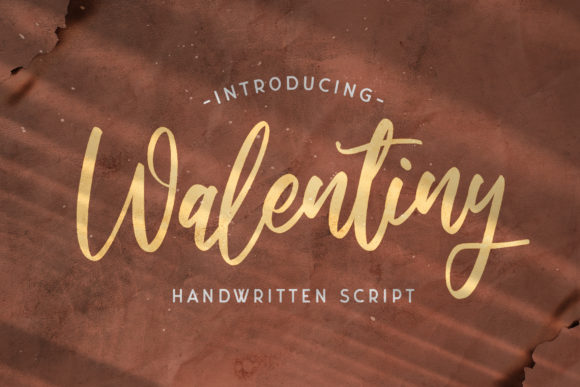
Introducing the captivating Walentiny script font – a masterpiece crafted with the soul of a brush pen. Its enchanting style dances across your designs, leaving a trail of joy and elegance.
Walentiny is the font that speaks volumes without uttering a word. Perfect for the creator seeking a distinct voice, it's the perfect partner for your brand's logo, adding a touch of personality and allure. Let your wedding invitations shimmer with joy, and transform your stationery into breathtaking works of art.
Dive into the world of social media and make your posts stand out from the crowd. Walentiny's alluring curves will captivate your audience, leaving them spellbound. The possibilities are endless, so let your imagination soar and create something truly extraordinary.
With Walentiny, you'll unlock a whole new level of self-expression. Whether you're designing logos, creating captivating content, or crafting personalized gifts, this font will infuse your creations with a touch of magic.
Don't settle for ordinary – embrace the extraordinary with Walentiny. Let your designs bloom with joy, and let your brand radiate with a voice that's uniquely yours. Walentiny – the font that empowers you to write your story, one unforgettable character at a time.